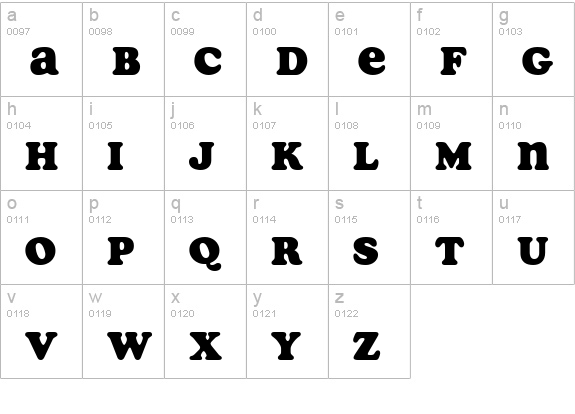
Introducing Soap font, a modern and stylish typeface that is perfect for adding a touch of elegance to your designs. This versatile font features clean lines and a sleek design that will make your text stand out. With its smooth curves and contemporary feel, Soap font is sure to enhance any project, whether it's for branding, advertising, or web design. Best of all, Soap font is completely free to download at FontsMarket.com. You can easily access this font and use it in your projects without any restrictions. Don't miss out on this amazing opportunity to add a touch of sophistication to your work with Soap font. Download it today and elevate your designs to the next level!